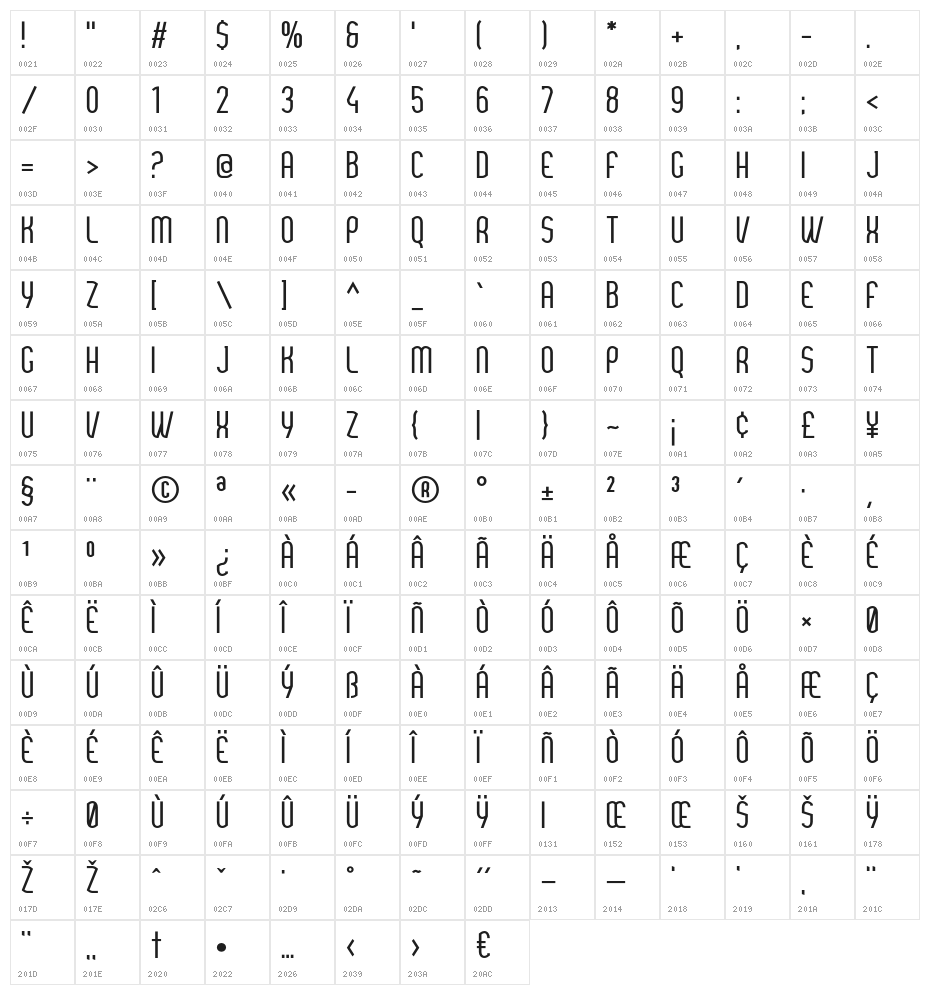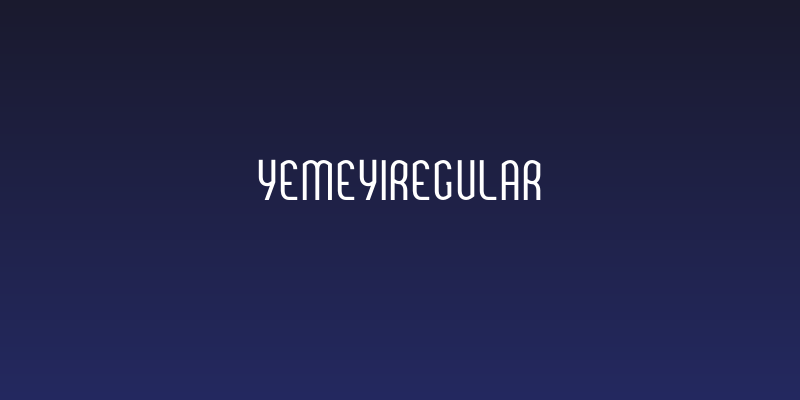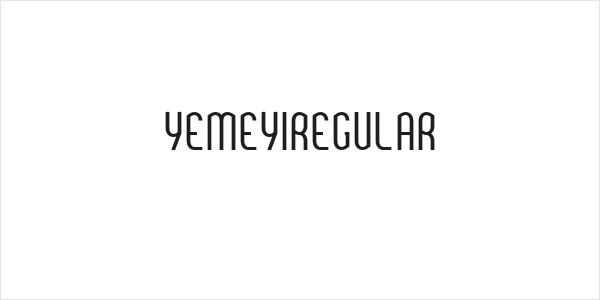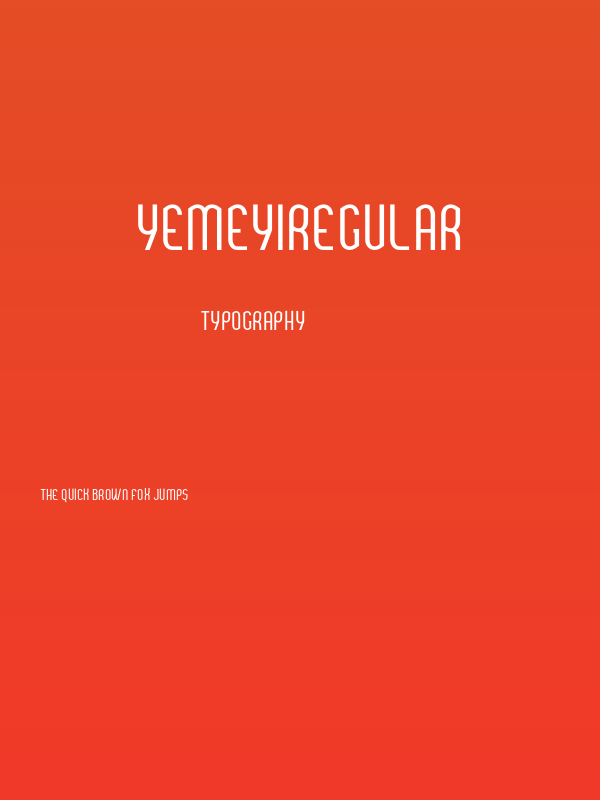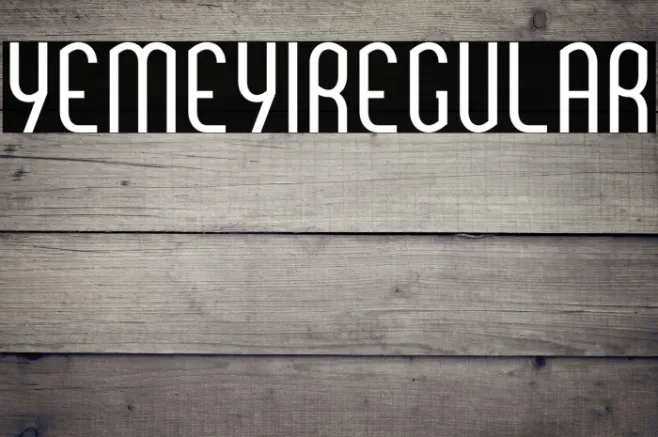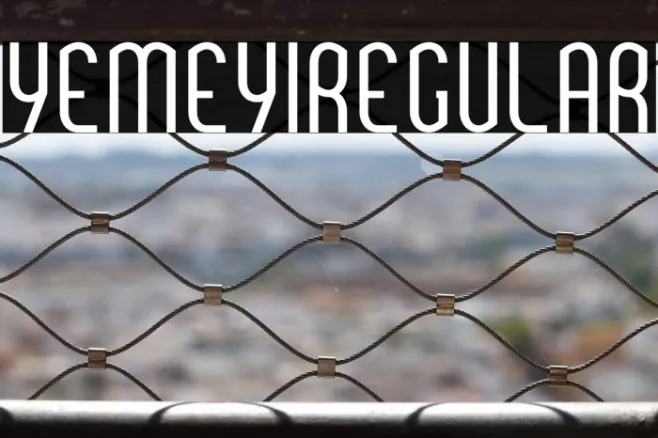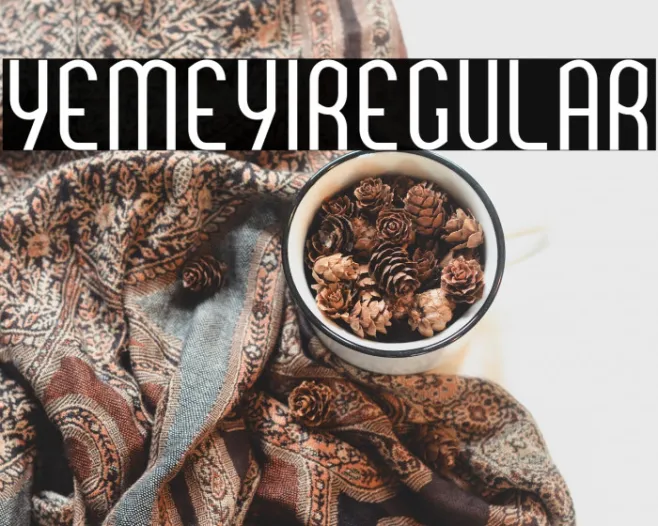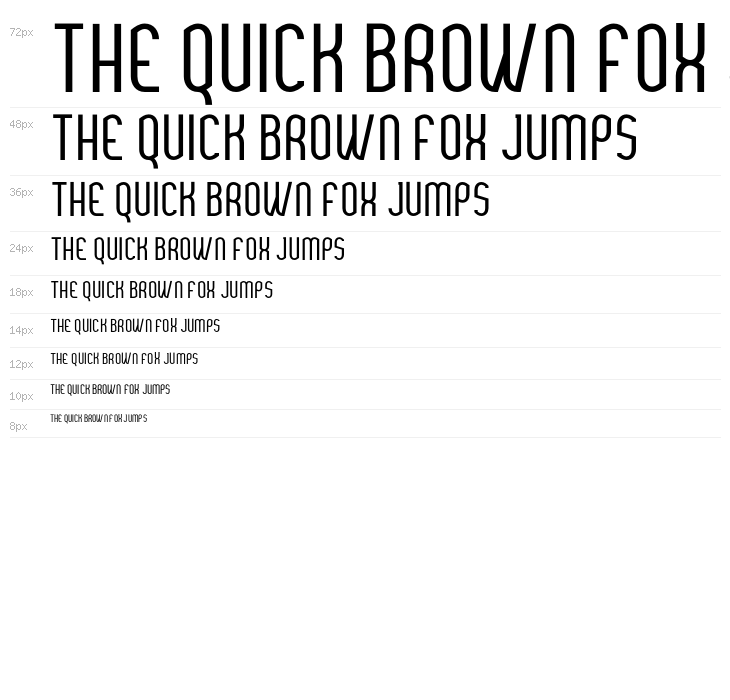
YemeyiRegular Font
YemeyiRegular Description
This font features a modern and sleek design with clean, straight lines and a slightly condensed appearance. The characters are uniform in height, providing a cohesive look across both uppercase and lowercase letters. The numerals are distinct and easy to read, complementing the overall style. Special characters are well-integrated, maintaining the font's minimalist aesthetic. The font's simplicity and clarity make it versatile for various design applications.